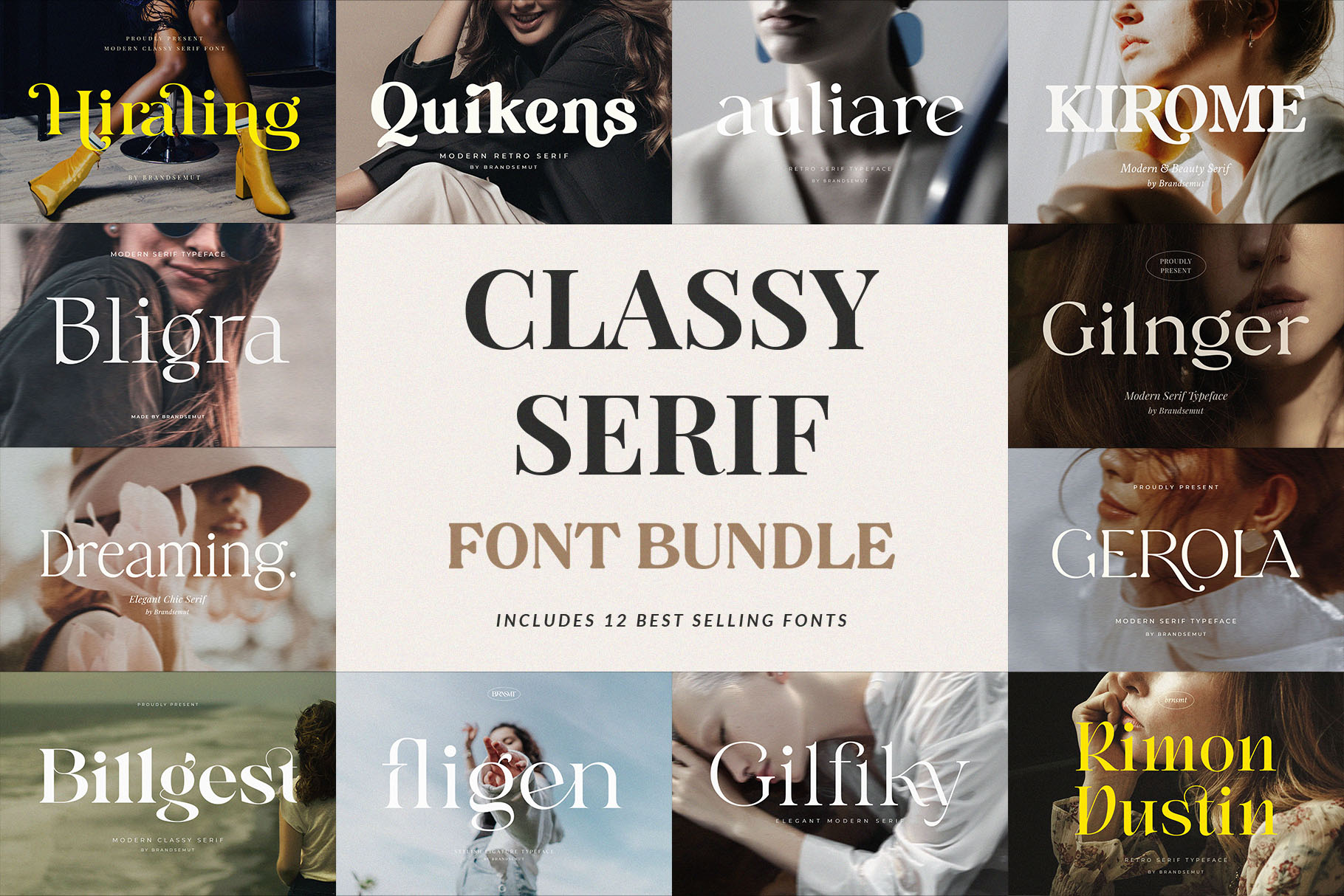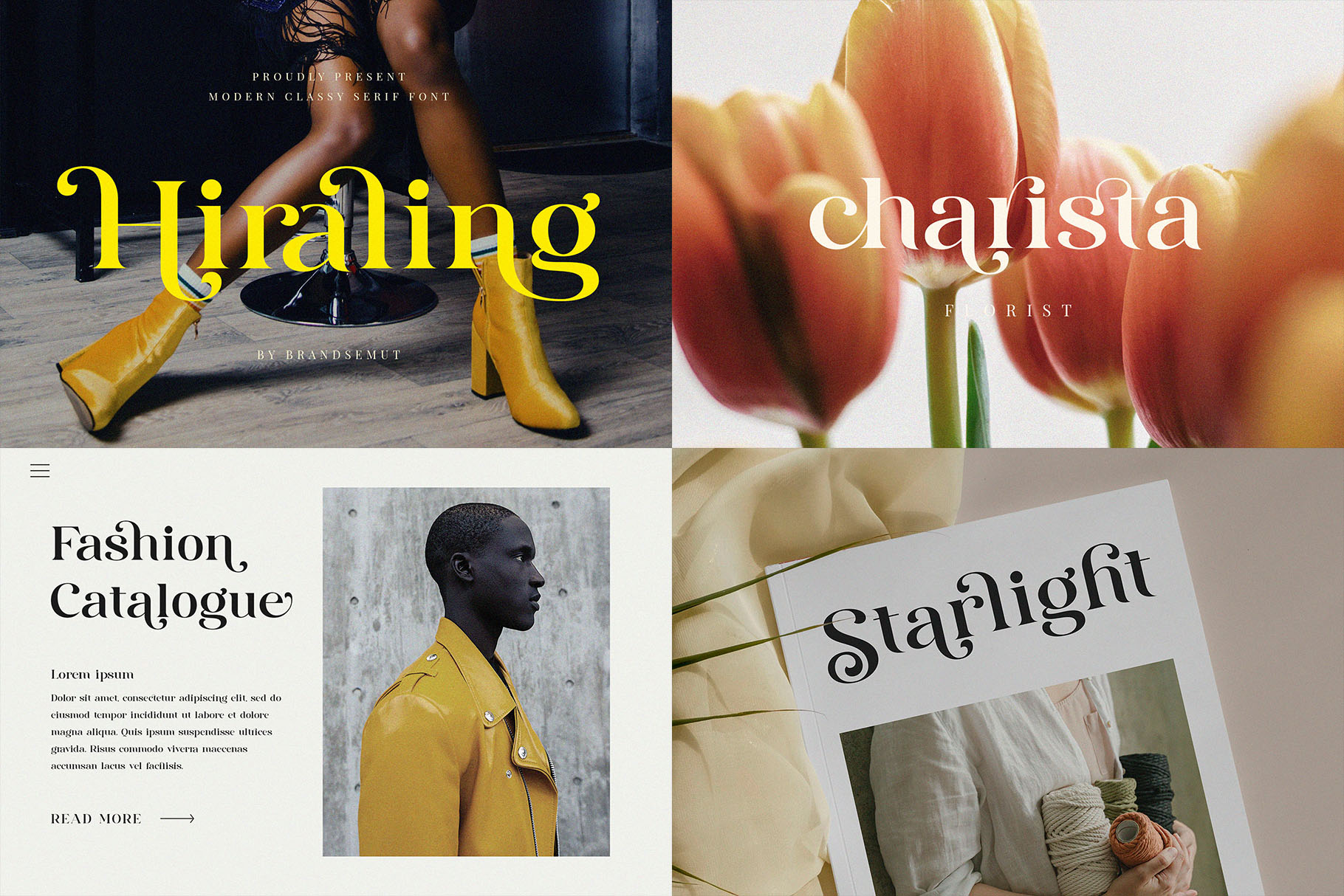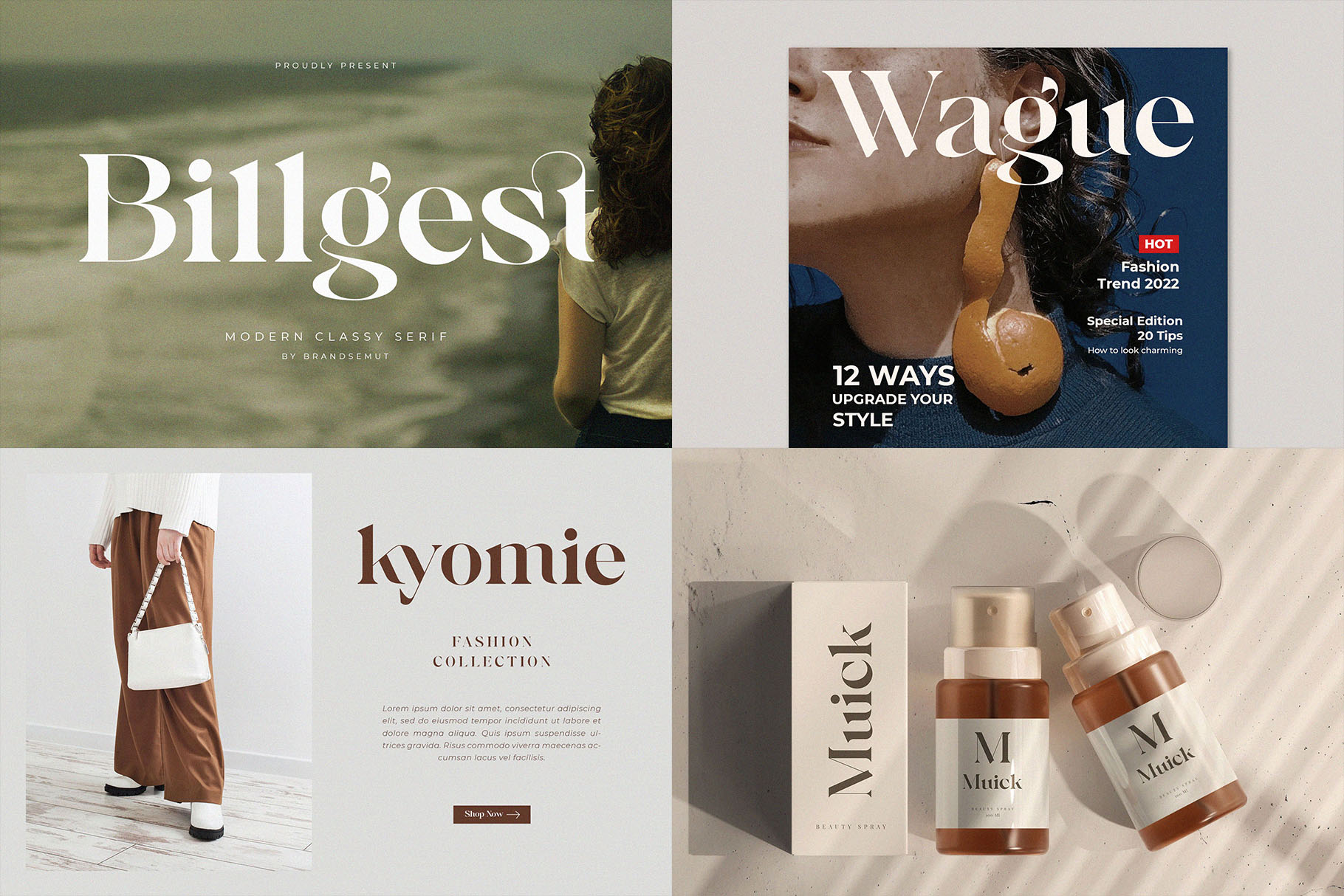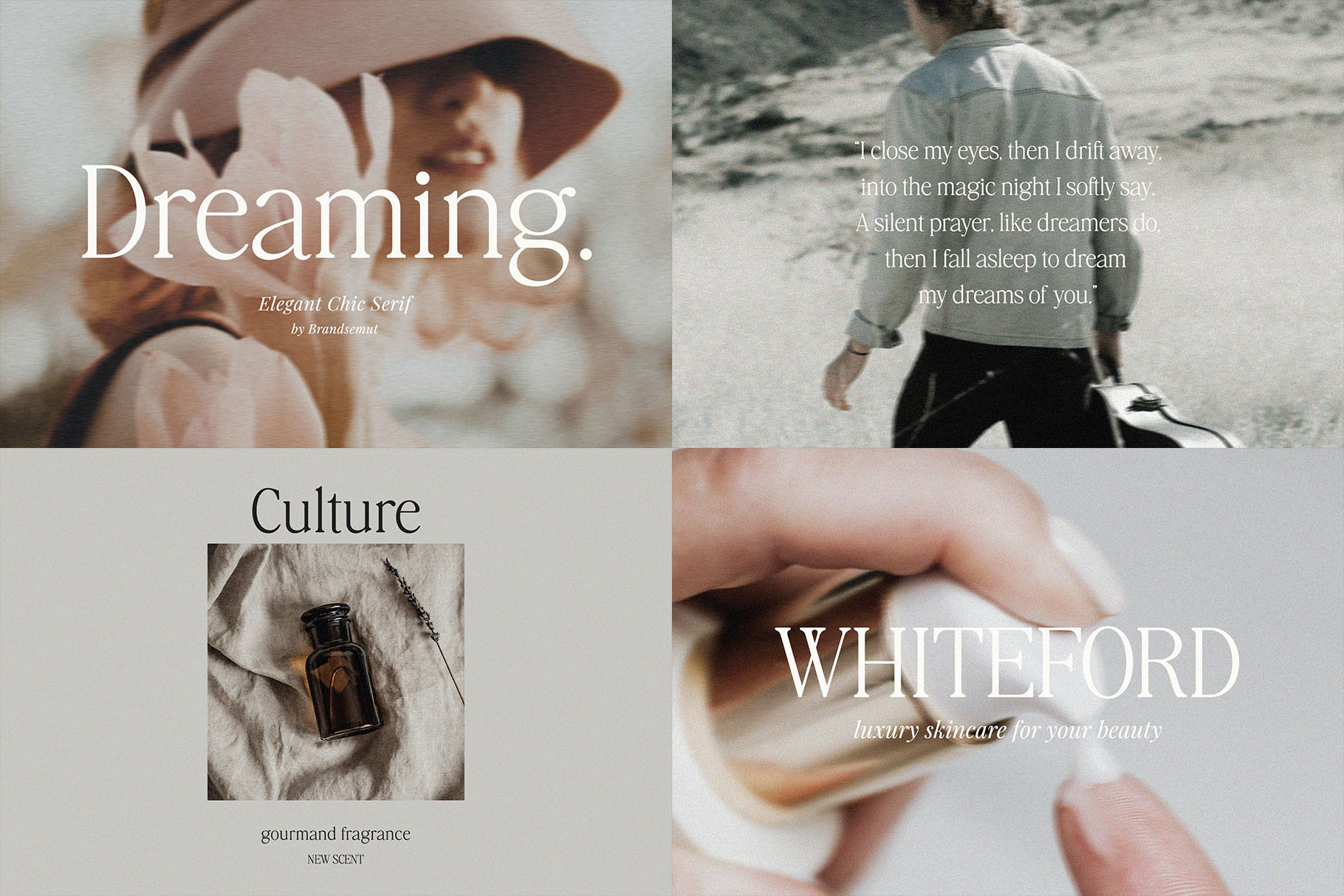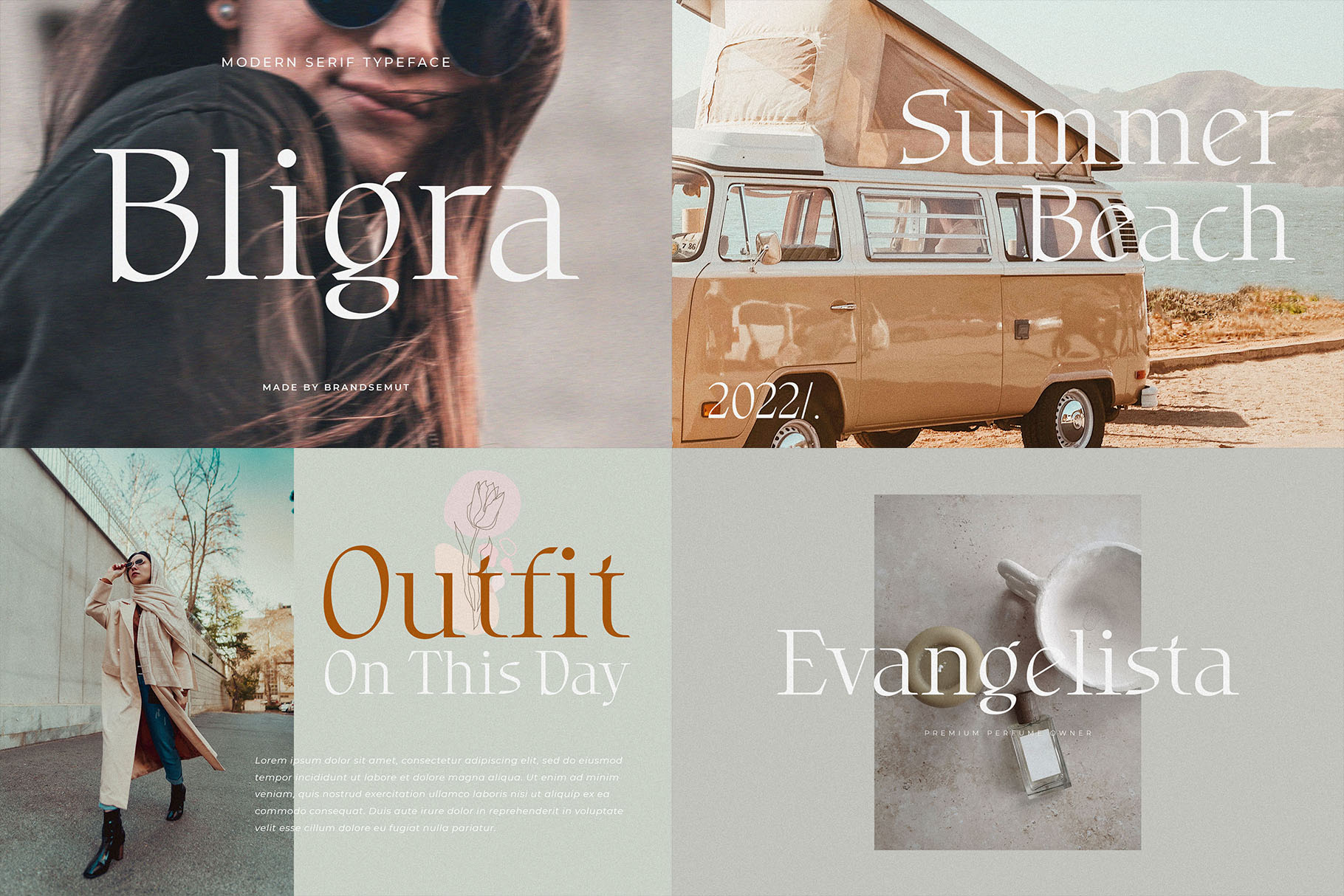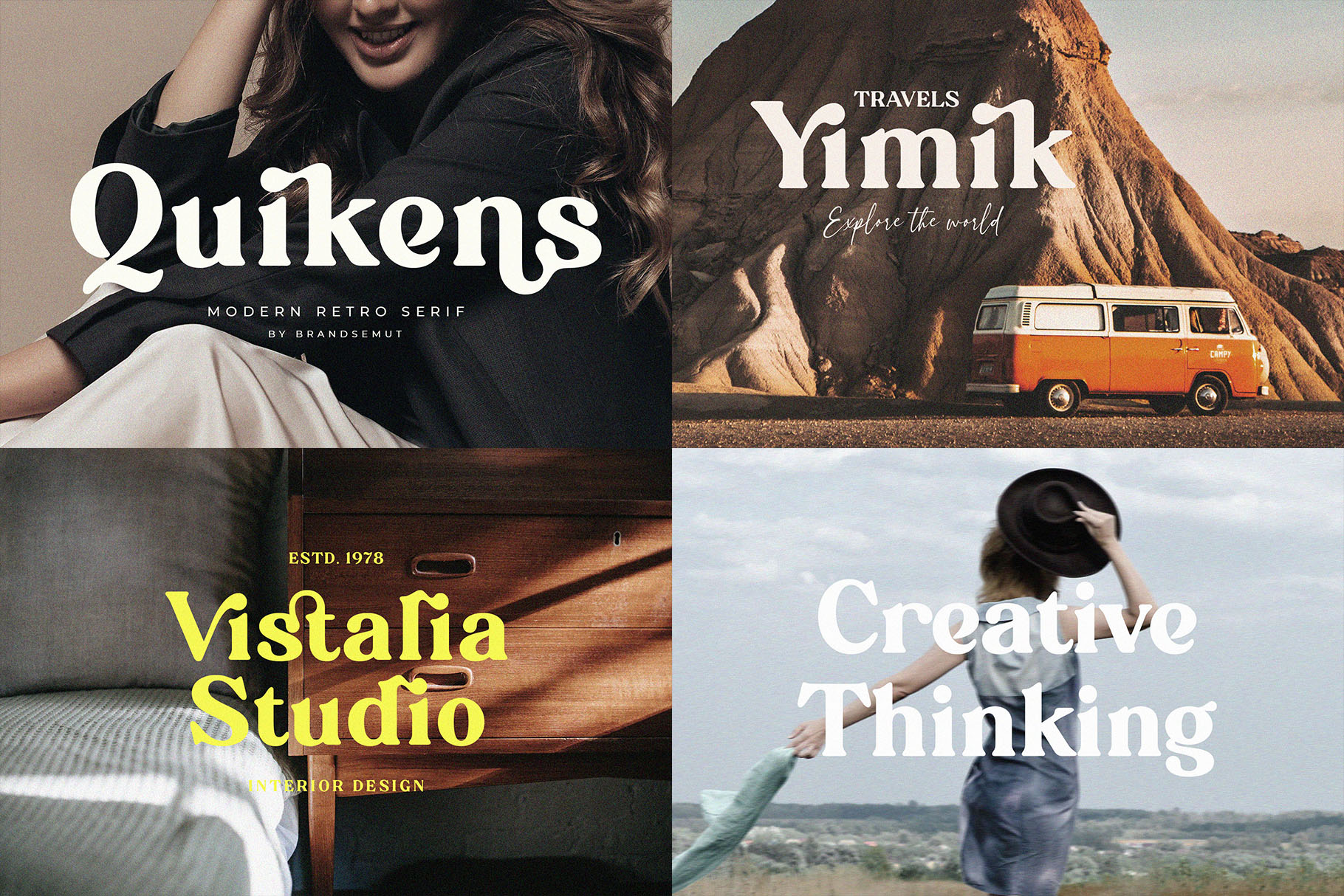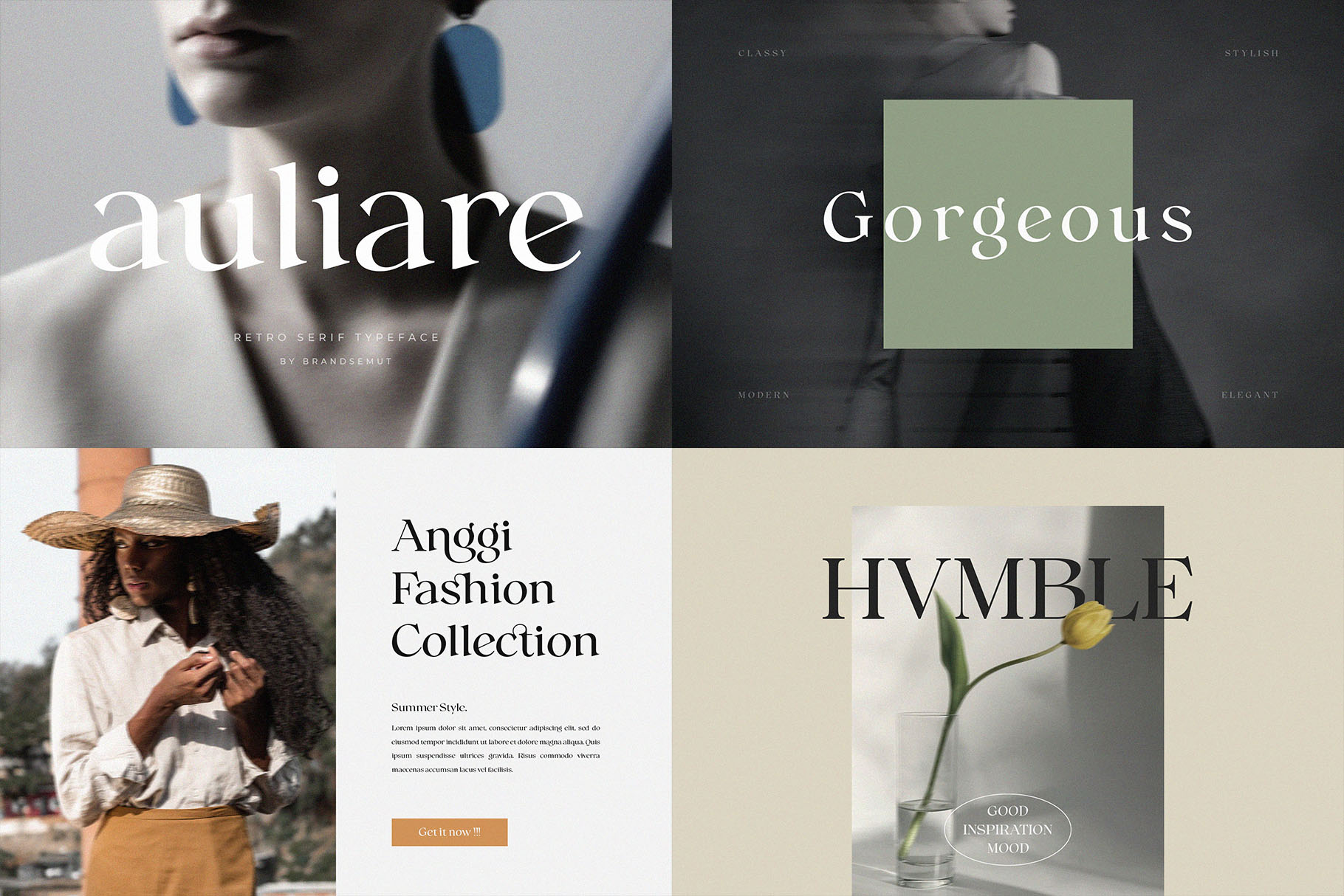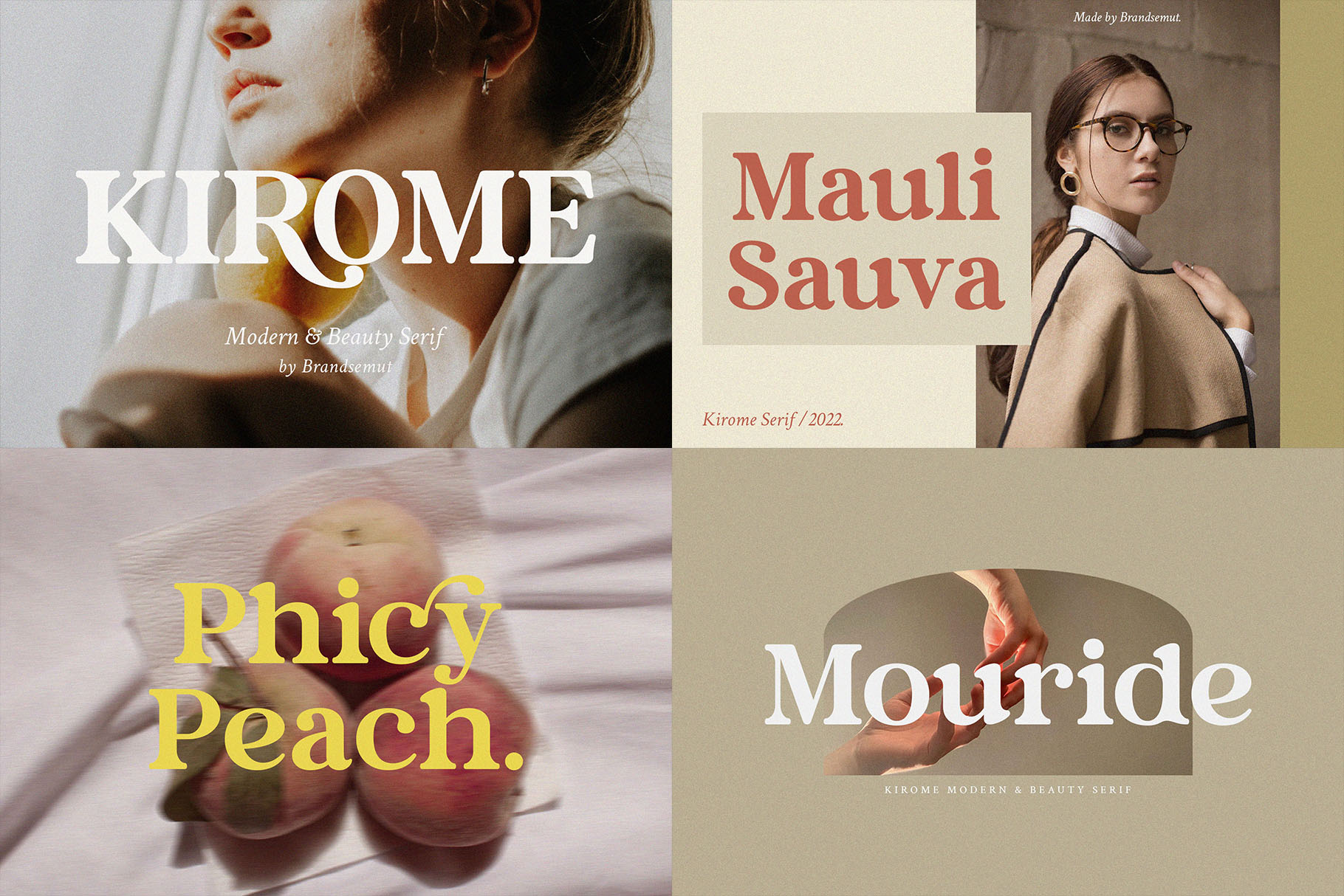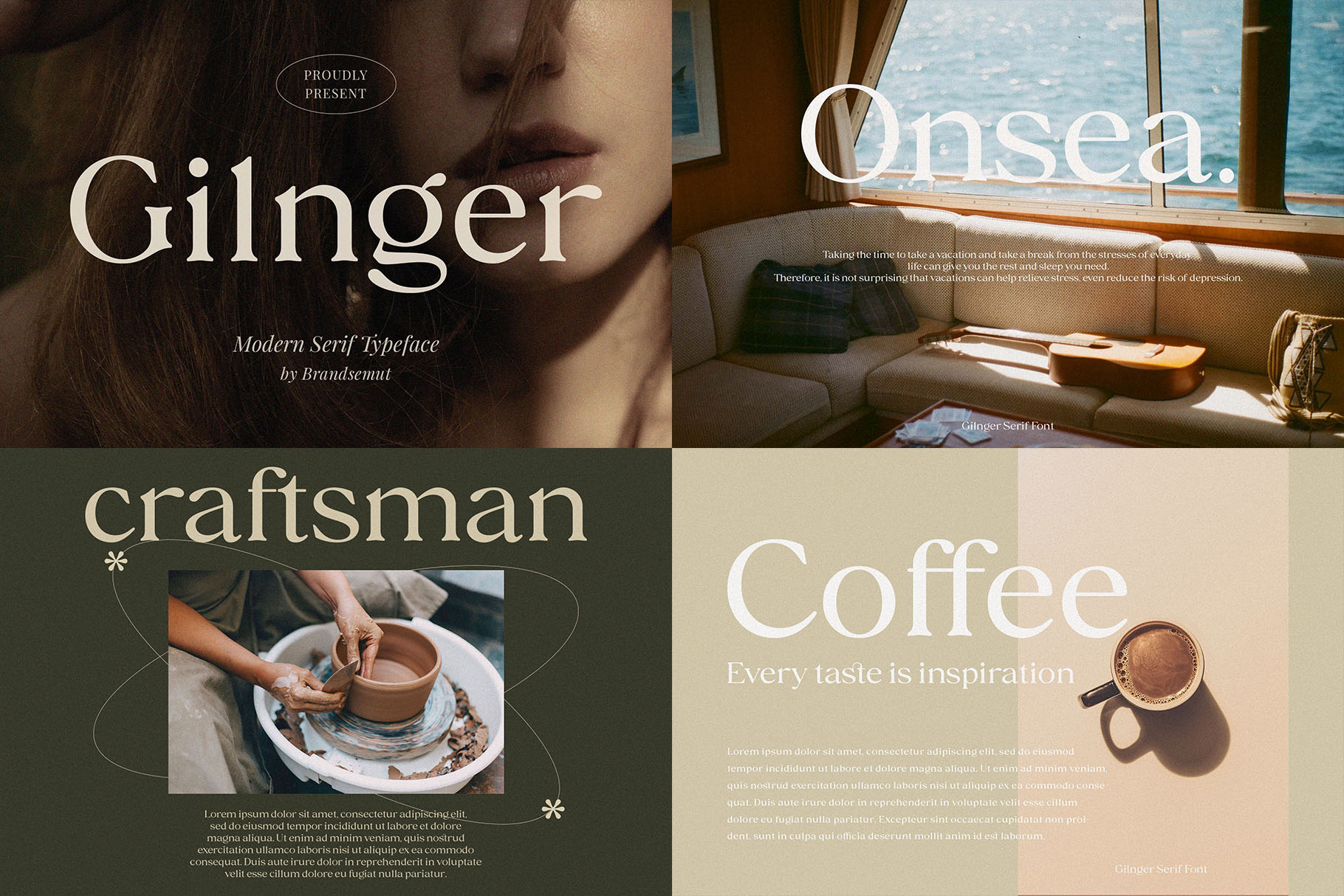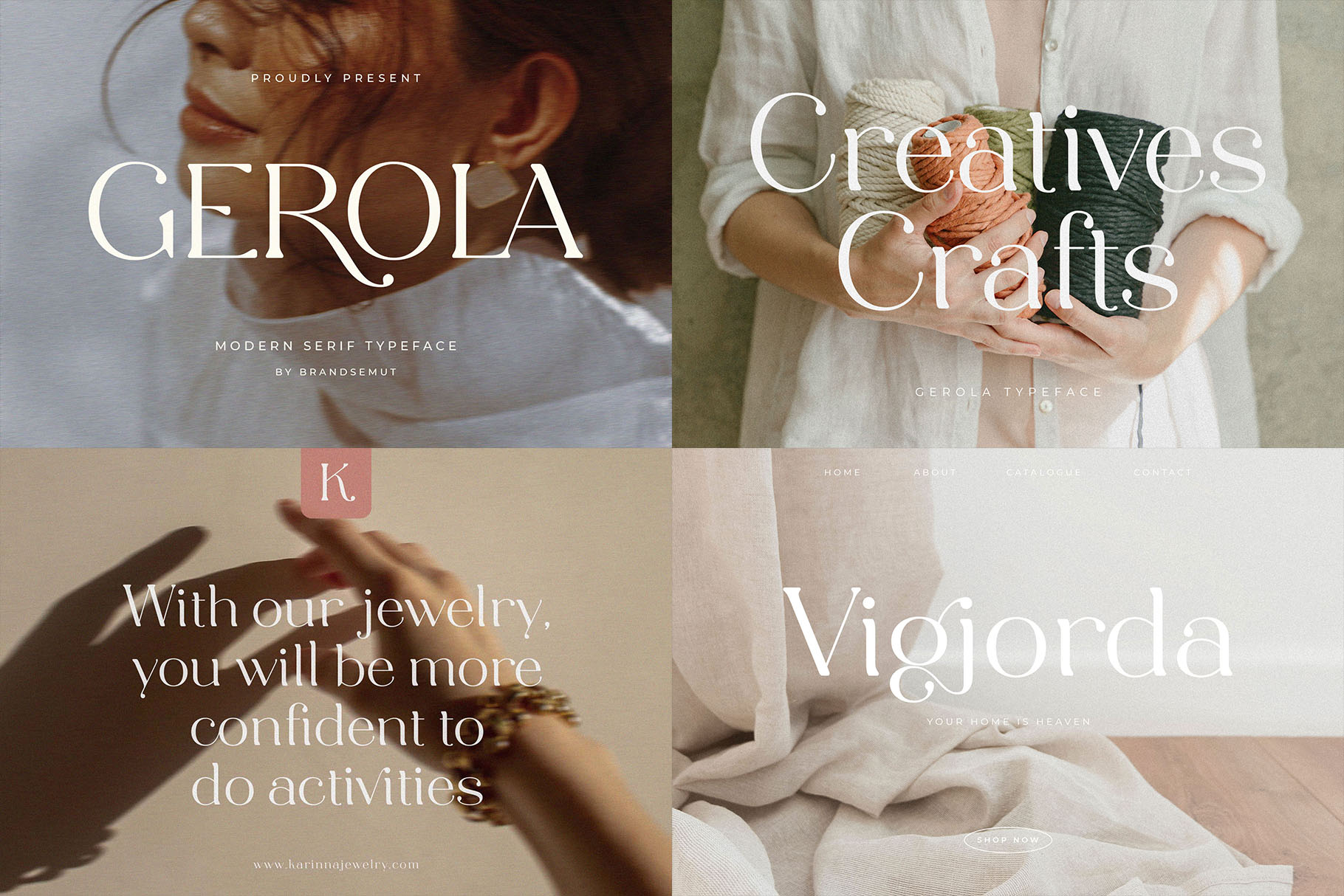
- Classy Serif Font Bundle
Best Classy Serif Font Bundle. Come with 12 best selling fonts.
Give your designs a calssy and elegant feel with this bundle which is perfectly suited for Branding, Logos, Blog, Social Media, Invites, Wedding, Poster, Magazine, Quotes, Packaging, Photo Overlays, Postcard, Advertisements, Fashion and others.
Fonts Included:
– Hiraling
– Quikens
– Auliare
– Kirome
– Gilnger
– Gerola
– Rimon Dustin
– Gilfiky
– Fligen
– Billgest
– Dreaming
– Bligra